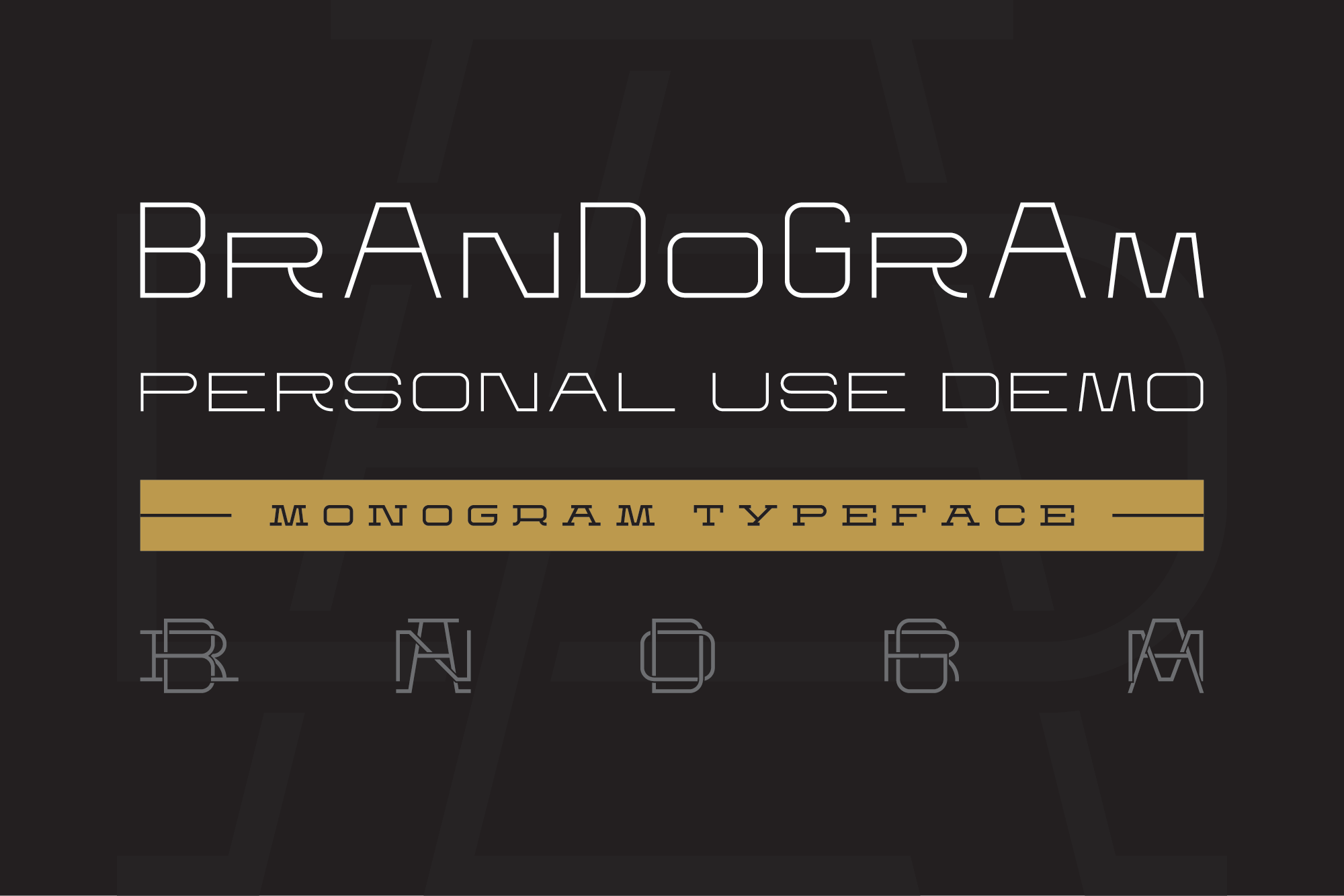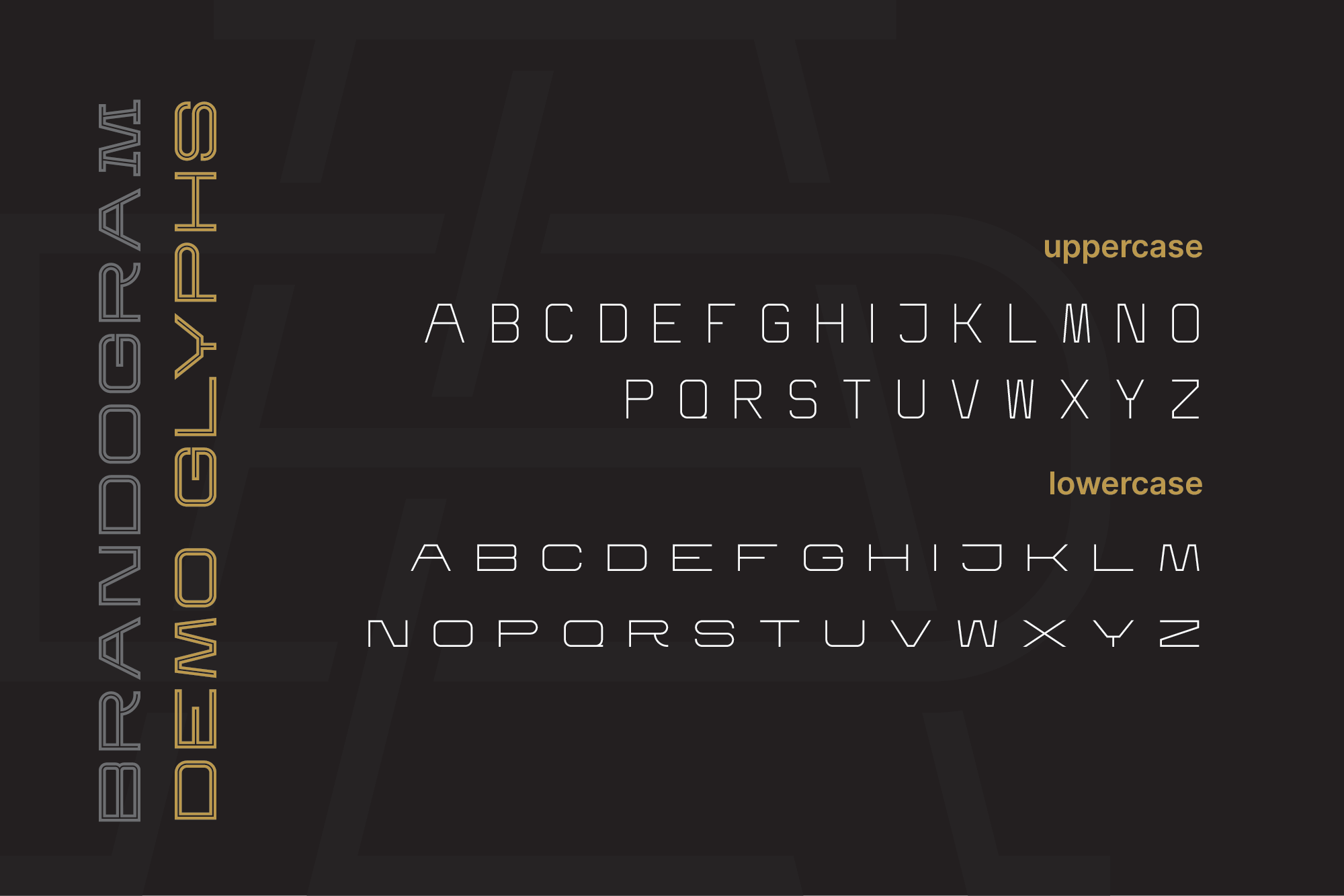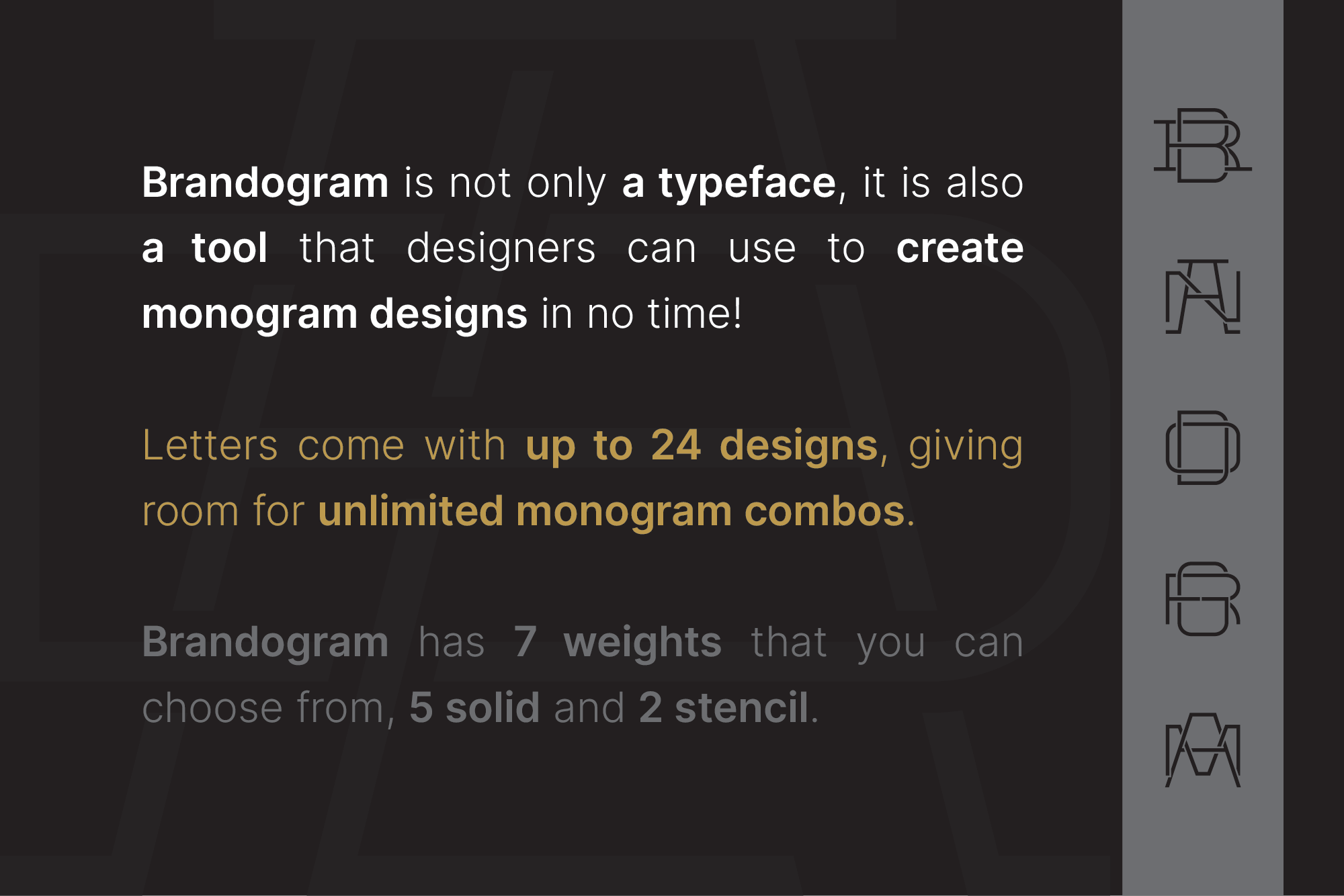
Using the Brandogram Typeface fonts for monograms you can easily create unlimited monogram combos with 2, 3 and even 4 letters.
This is a Personal Use DEMO font and it includes uppercase and lowercase A to Z glyphs only. We’ve launched it so you can test what it can do, before buying the entire typeface.
Our entire Brandogram Typeface for Monogram Designs includes a whole lot more flexibility and unlimited combo variations.
These are some of the features for the full typeface: